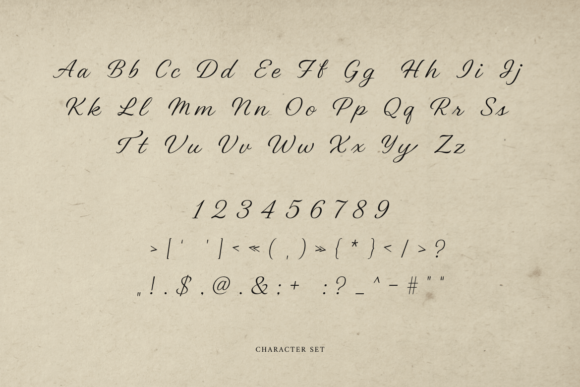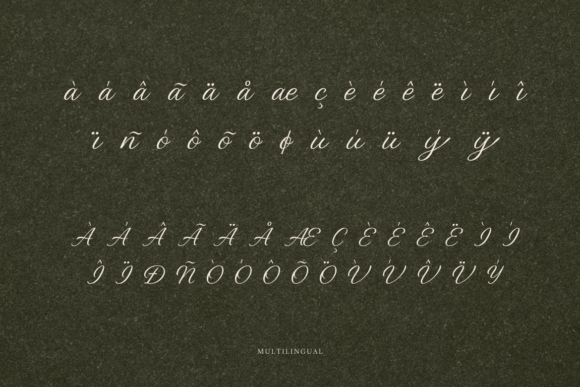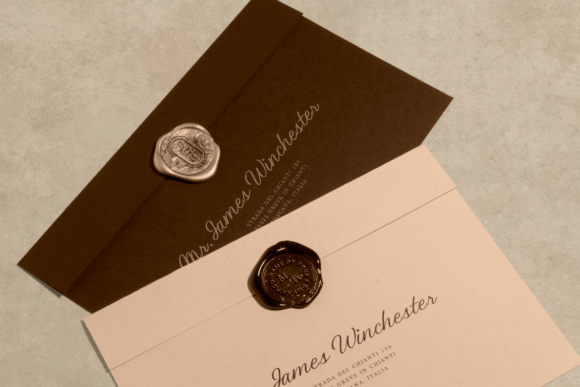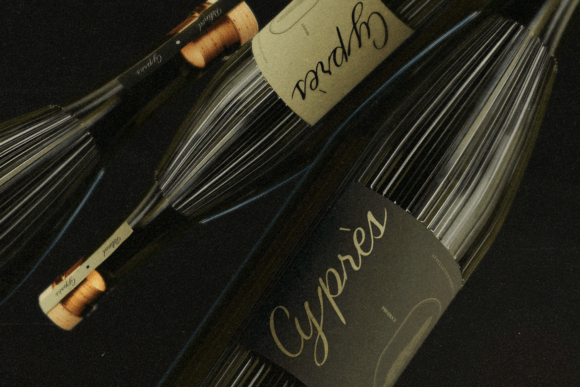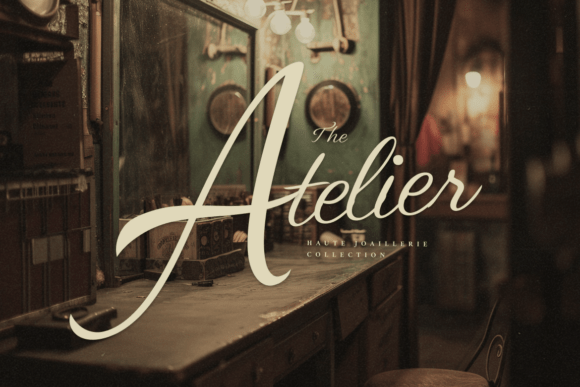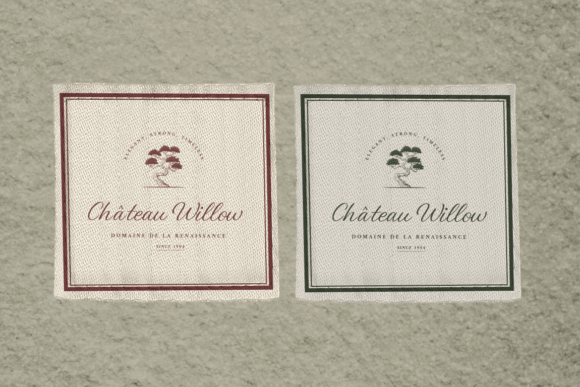
Carmeline Font: A Timeless Handwritten Style for Luxury Branding and Editorial Typography
In the world of typography, few fonts capture the essence of elegance and sophistication as beautifully as Carmeline. This refined handwritten font is inspired by the timeless penmanship and vintage charm of classic calligraphy, making it an ideal choice for luxury branding, personal signatures, and editorial typography. With its flowing curves and graceful letterforms, Carmeline evokes a sense of refinement and poise, perfect for designers and crafters looking to add a touch of classic sophistication to their work.
The Characteristics of Carmeline Font
Carmeline’s unique charm lies in its soft contrast and organic rhythm, which give each word a natural, romantic character. The font’s flowing curves and delicate letterforms create a sense of movement and fluidity, making it perfect for both modern and classic aesthetics. Whether you’re looking to create a luxurious brand identity, a beautiful editorial spread, or a personal signature, Carmeline’s elegant and refined style is sure to impress.
Luxury Branding with Carmeline
In the world of luxury branding, typography plays a crucial role in conveying sophistication and elegance. Carmeline’s refined handwritten style makes it an ideal choice for luxury brands looking to create a high-end visual identity. With its classic charm and timeless appeal, Carmeline can help luxury brands establish a sense of heritage and tradition, while also conveying a sense of modernity and sophistication.
From high-end fashion brands to luxury lifestyle companies, Carmeline’s elegant font can help create a lasting impression on customers. Whether you’re looking to create a logo, packaging, or advertising materials, Carmeline’s refined style is sure to elevate your brand’s visual identity and make it stand out in a crowded market.
Editorial Typography with Carmeline
In the world of editorial typography, Carmeline’s elegant font can add a touch of sophistication and refinement to any publication. Whether you’re working on a fashion magazine, a lifestyle blog, or a literary journal, Carmeline’s flowing curves and delicate letterforms can help create a beautiful and engaging reading experience.
With its soft contrast and organic rhythm, Carmeline can help create a sense of movement and fluidity in editorial typography, making it perfect for articles, features, and editorials. Whether you’re looking to create a classic and timeless look or a modern and trendy aesthetic, Carmeline’s versatile font can adapt to any editorial style.
Personal Signatures with Carmeline
In the world of personal branding, a signature font can make all the difference in establishing a unique and recognizable identity. Carmeline’s elegant and refined font makes it an ideal choice for personal signatures, whether you’re a creative professional, an entrepreneur, or simply looking to add a touch of sophistication to your digital presence.
With its classic charm and timeless appeal, Carmeline can help create a lasting impression on others, conveying a sense of refinement and poise. Whether you’re looking to create a digital signature, a personal logo, or simply want to add a touch of elegance to your social media profiles, Carmeline’s beautiful font is sure to impress.
Design and Crafting with Carmeline
For designers and crafters, Carmeline’s elegant font offers endless possibilities for creative expression. Whether you’re working on a graphic design project, a crafting tutorial, or simply looking to add a touch of sophistication to your digital art, Carmeline’s refined style is sure to inspire.
With its flowing curves and delicate letterforms, Carmeline can help create beautiful and intricate designs, perfect for papercrafting, lettering, and other creative pursuits. Whether you’re a seasoned designer or a crafty hobbyist, Carmeline’s versatile font can help elevate your work and add a touch of classic sophistication to your creations.
| Author | product.rasiostudio |
In conclusion, Carmeline font is a timeless handwritten style that offers a refined and elegant solution for luxury branding, editorial typography, personal signatures, and design and crafting projects. With its flowing curves, delicate letterforms, and soft contrast, Carmeline evokes a sense of sophistication and refinement, making it perfect for designers and crafters looking to add a touch of classic charm to their work.
Whether you’re looking to create a luxurious brand identity, a beautiful editorial spread, or a personal signature, Carmeline’s elegant font is sure to impress. So why not discover the beauty of Carmeline for yourself and experience the timeless charm of this refined handwritten font?